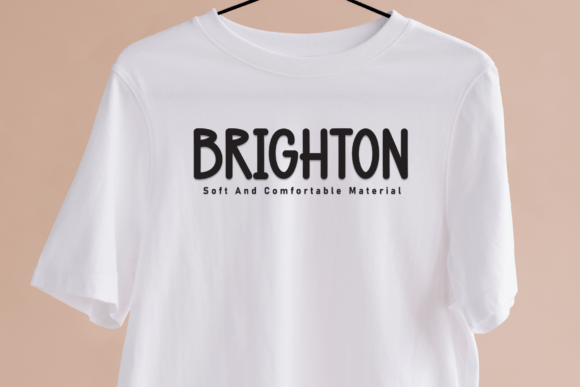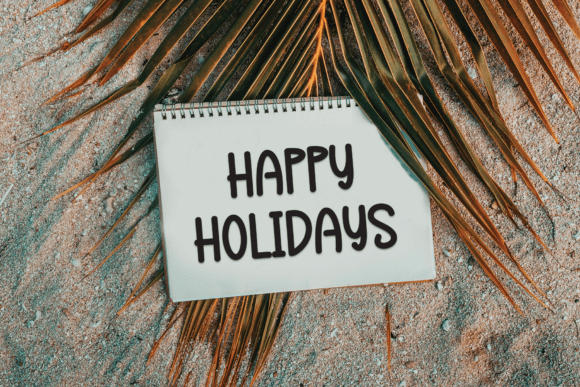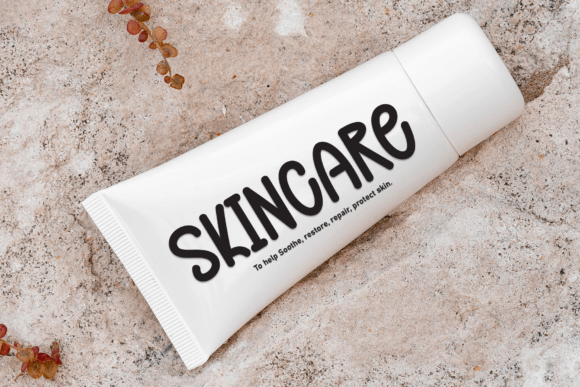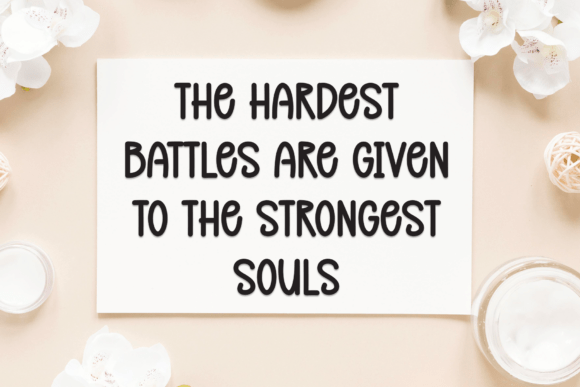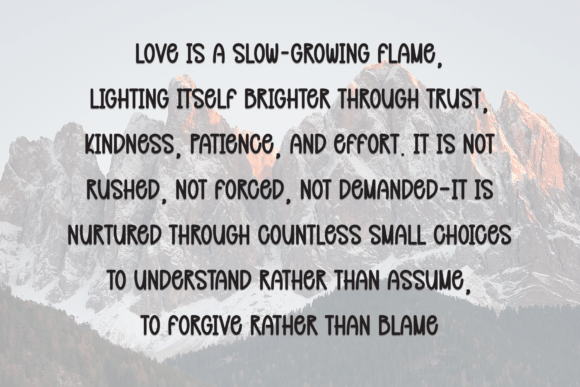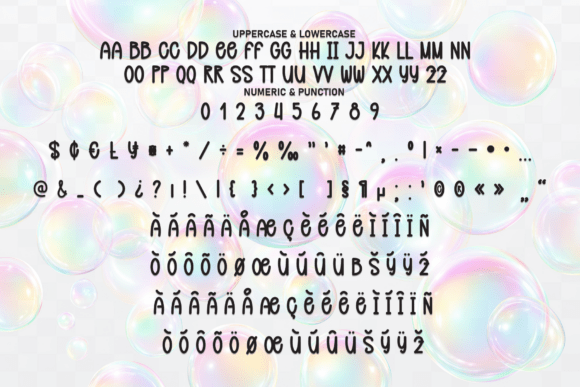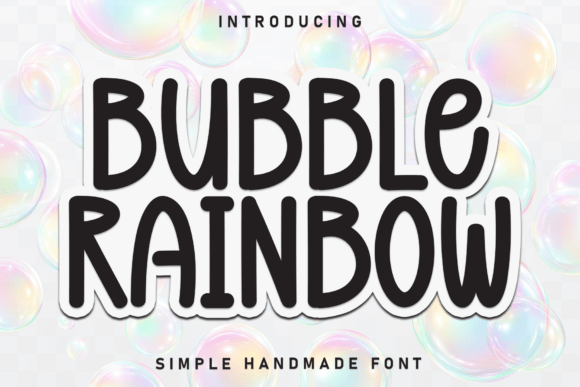
Bubble Rainbow Font: Elevate Your Designs with Whimsical Sophistication
Are you looking for a font that adds a touch of magic to your designs? Look no further than the Bubble Rainbow Font, a handcrafted display font that embodies sophistication and luminous allure. This unique font is guaranteed to captivate with its irresistible charisma, making it perfect for romantic wedding invitations, heartfelt greeting cards, and any creative endeavor that requires a dash of joy.
A Font that Shines with Celebratory Brilliance
The Bubble Rainbow Font is not just a typeface, but an infusion of happiness that empowers your designs with a jubilant glow. Its vivacious emphasis elevates every character, allowing each one to shine with celebratory brilliance. Whether you’re designing a wedding invitation, a greeting card, or a social media post, this font is sure to add a touch of whimsy and sophistication to your work.
The Bubble Rainbow Font is a versatile font that can be used in a variety of creative projects. Designers and crafters will love the font’s unique and playful style, which adds a touch of personality to any design. Whether you’re creating digital or print materials, this font is sure to make your work stand out.
Key Features of the Bubble Rainbow Font
- Handcrafted with love: Each character is carefully crafted to ensure a unique and playful look.
- Sophisticated and luminous: The font embodies sophistication and luminous allure, making it perfect for designs that require a touch of elegance.
- Vivacious emphasis: The font’s vivacious emphasis elevates every character, allowing each one to shine with celebratory brilliance.
- Perfect for romantic designs: The font’s whimsical and playful style makes it perfect for romantic wedding invitations, heartfelt greeting cards, and other designs that require a touch of love.
Inspiration for Your Designs
The Bubble Rainbow Font is perfect for a variety of designs, including:
- Wedding invitations: Add a touch of whimsy and romance to your wedding invitations with this unique font.
- Greeting cards: Create heartfelt greeting cards that shine with celebratory brilliance.
- Social media posts: Add a touch of personality to your social media posts with this playful font.
- Digital art: Use the font to create stunning digital art that showcases your creativity.
The Bubble Rainbow Font is a unique and playful font that adds a touch of magic to any design. Its sophisticated and luminous allure makes it perfect for designs that require a touch of elegance, while its vivacious emphasis elevates every character to shine with celebratory brilliance. Whether you’re a designer or crafter, this font is sure to inspire your creativity and empower your designs with a jubilant glow.